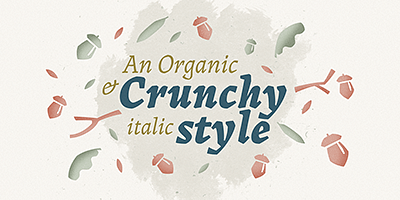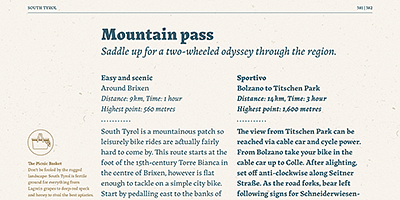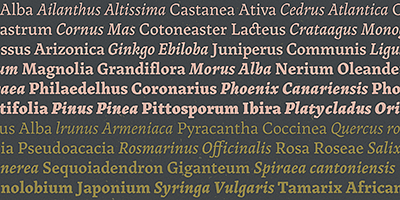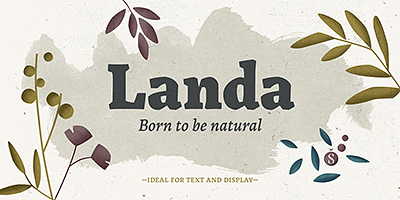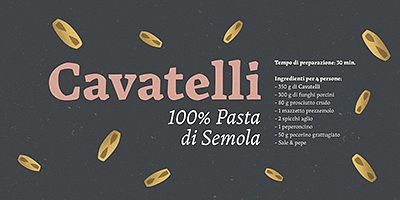
Landa is a glimpse from the cutting edge into the past. Inspired by Venetian lettering from the 15th century, whilst giving them new meaning, its letters become expressionist and have a modern touch. A rendez-vous between Nicolas Jenson, Oldřich Menhart, and nature itself.